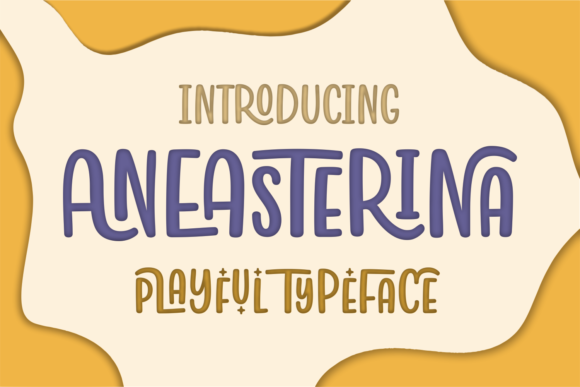
Introducing Aneasterina Font - A Stroke of Elegance for Your Creative Endeavors
Step into the realm of captivating typography with Aneasterina Font, a casual, playful handwritten font that dances across your designs with charm and personality. Inspired by the free-flowing strokes of a marker, this font exudes a touch of whimsy and uniqueness that sets it apart from the ordinary.
Crafted with the utmost care and precision, Aneasterina is a calligraphy font that captivates with its clean lines and a hint of quirkiness. Each letter dances across the page with a graceful allure, inviting you to explore the endless possibilities it holds for your creative projects.
Immerse yourself in the beauty of Aneasterina and let your imagination soar. Whether you're designing logos, branding your business, creating captivating social media posts, or embarking on DIY projects, this font is your perfect companion. Its versatility knows no bounds, allowing you to add a touch of elegance and warmth to all your endeavors.
Experience the joy of crafting personalized invitations, greeting cards, posters, and flyers that leave a lasting impression. Let Aneasterina's playful charm elevate your designs and make them truly unforgettable. With its ability to bring a smile to anyone's face, this font is the perfect choice for adding a dash of happiness to your creative pursuits.
At Aneasterina, we believe that fonts have the power to transform the ordinary into the extraordinary. With its enchanting handwritten style, this font invites you to unleash your creativity and create designs that capture the hearts of your audience.